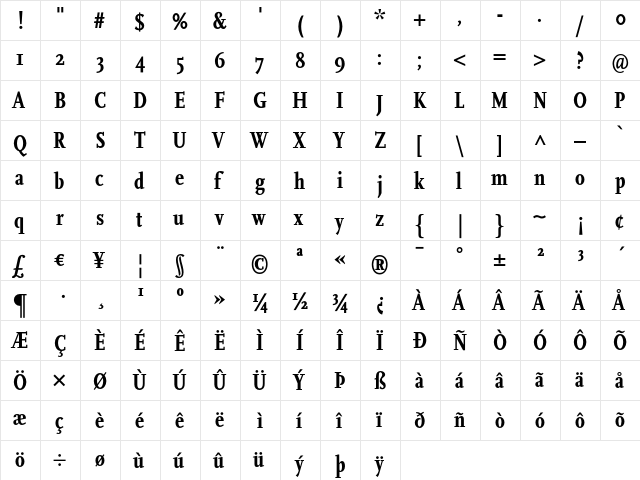
Scala Cond Bold
Design Context for Scala Cond Typeface
Scala Cond offers clean, dependable letterforms without strong stylistic allegiance, making it a practical choice for designers who need flexibility. Its bold stroke weight gives it real presence on the page. Its narrow stance lets it pack a punch even in space-constrained designs.
Pro Tip: Pair Scala Cond with a font of contrasting weight or personality to build a more expressive typographic hierarchy.